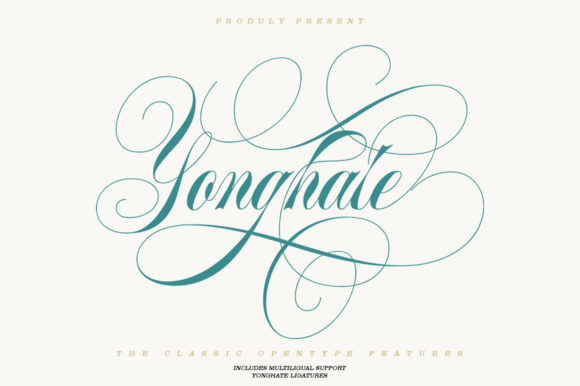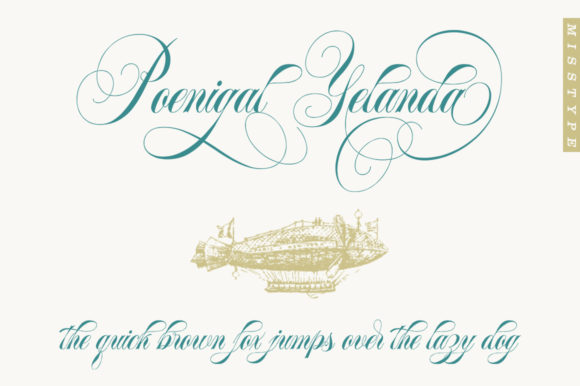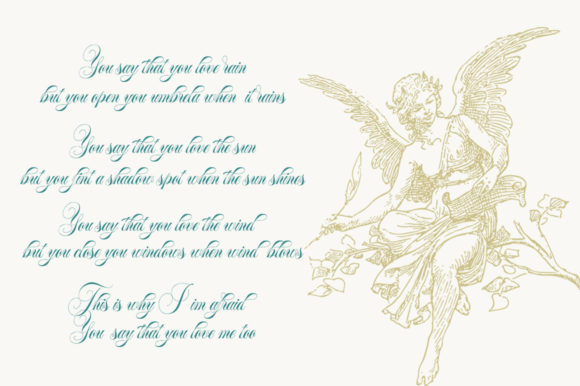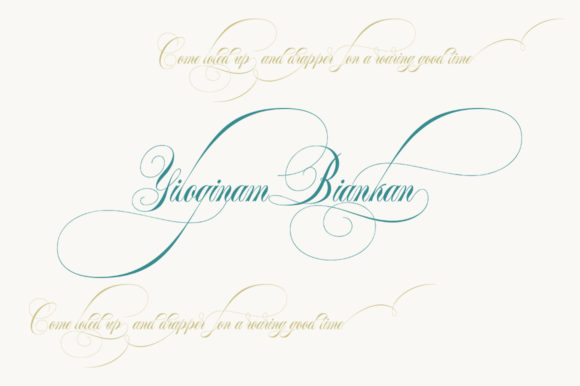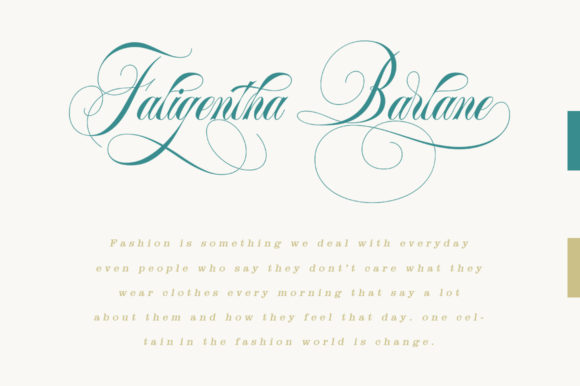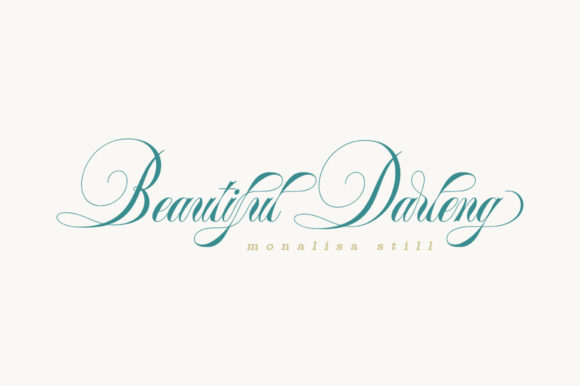
Yonghate Font
About Yonghate Font
Yonghate is inspired by classic typography and brings its own unique style to every design project. This fantastic script font is best suited for headers of all sizes, and for blocks of text that have maximum and minimum variations. Whether it’s for the web, printing, moving images or whatever – Yonghate will look spectacular.